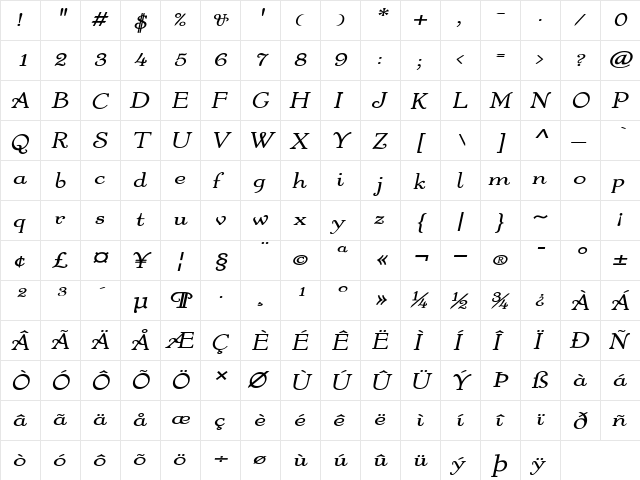
Fanciful-Extended Bold Italic
Design Context for Fanciful-Extended Typeface
Fanciful-Extended is a composed and adaptable typeface that performs quietly and consistently across a wide range of design contexts. The slanted form adds forward momentum and visual energy. The heavy weight commands attention and anchors typographic hierarchies.
Pro Tip: Try Fanciful-Extended for annotation and caption copy alongside an upright companion — the contrast in angle creates a dynamic but ordered typographic system.